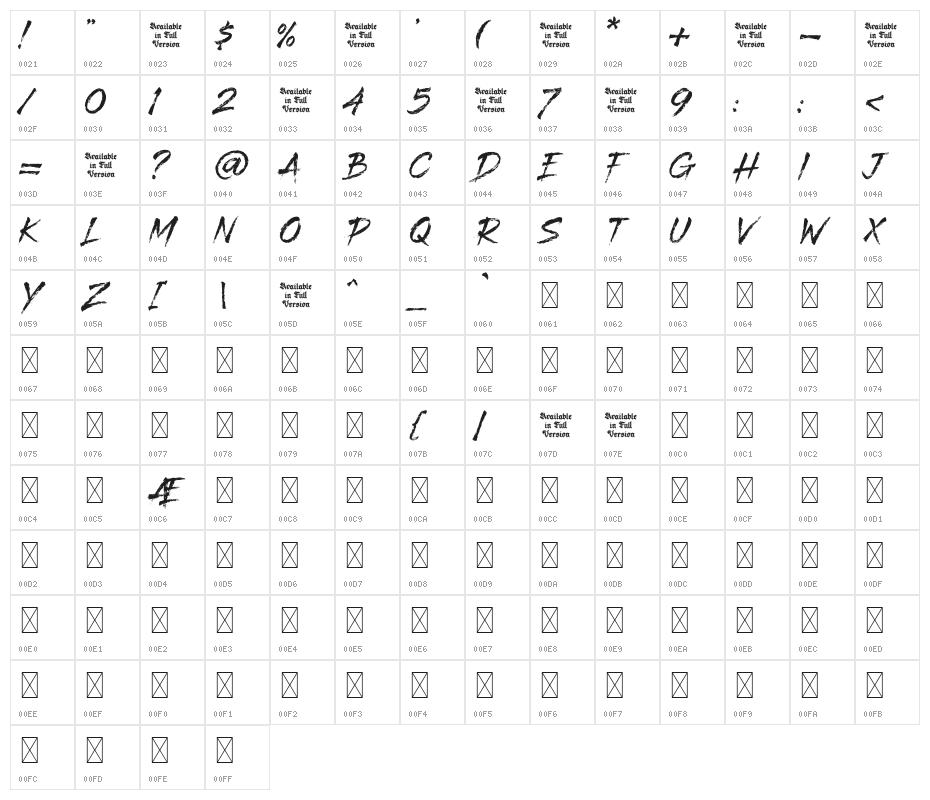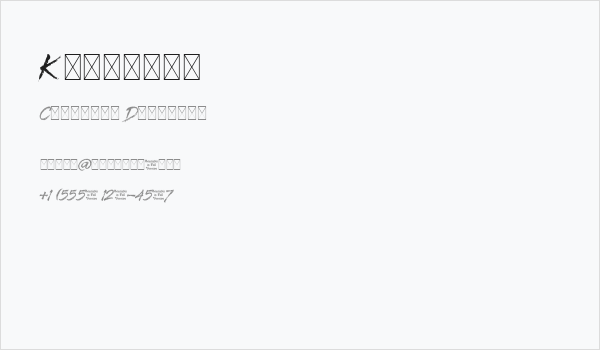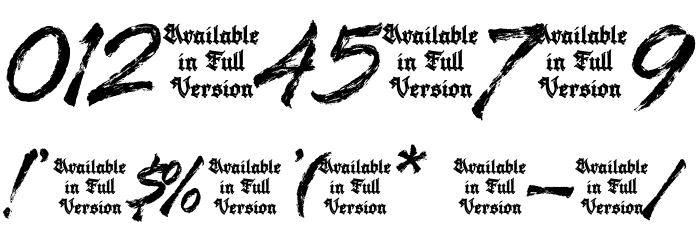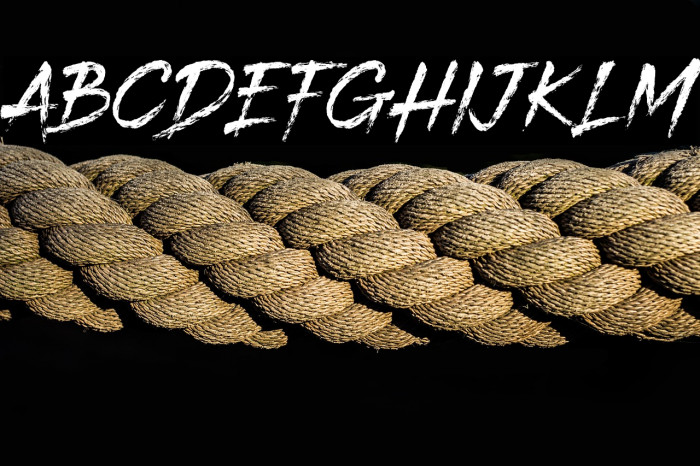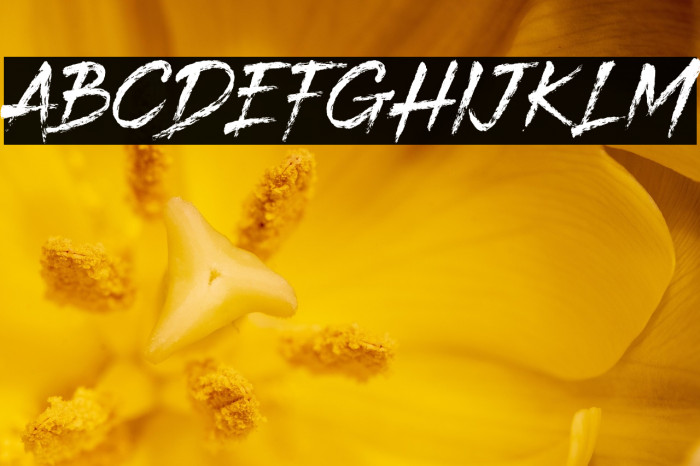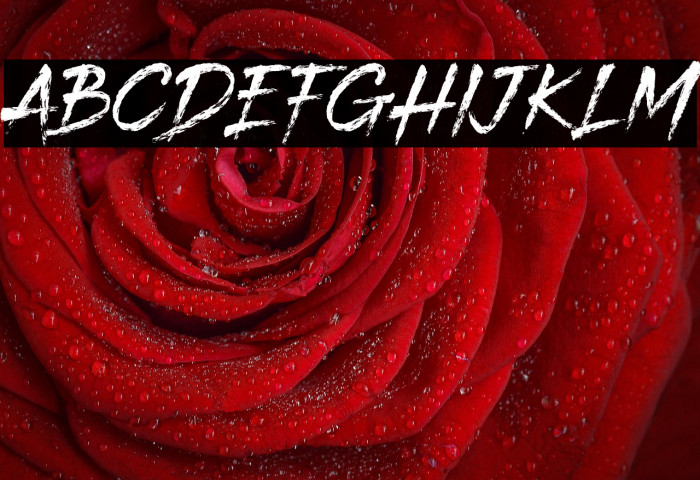
Konizuka Font
Konizuka Description
This font features a bold, brushstroke style that conveys a sense of energy and dynamism. The uppercase letters are crafted with a rough, textured appearance, giving them a hand-painted look. The numbers and special characters maintain this aesthetic, ensuring a cohesive visual experience. The font's unique style makes it stand out, ideal for projects that require a strong, artistic flair. Its irregular edges and varying stroke thicknesses add to its expressive nature, making it suitable for creative and bold design applications.
| Overall Style | Artistic, Expressive |
| Proposed Projects | Ideal for posters, album covers, branding, and any project needing an artistic and bold statement. |